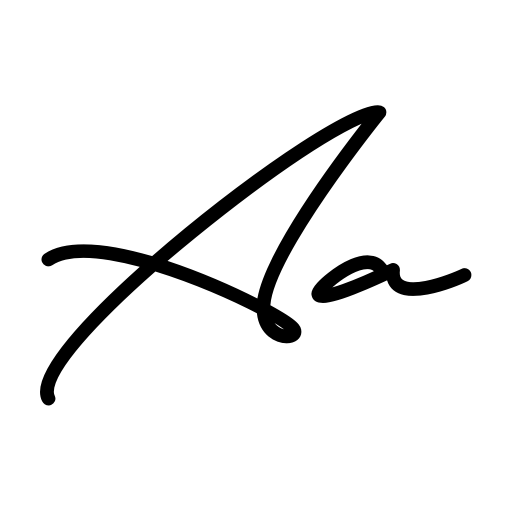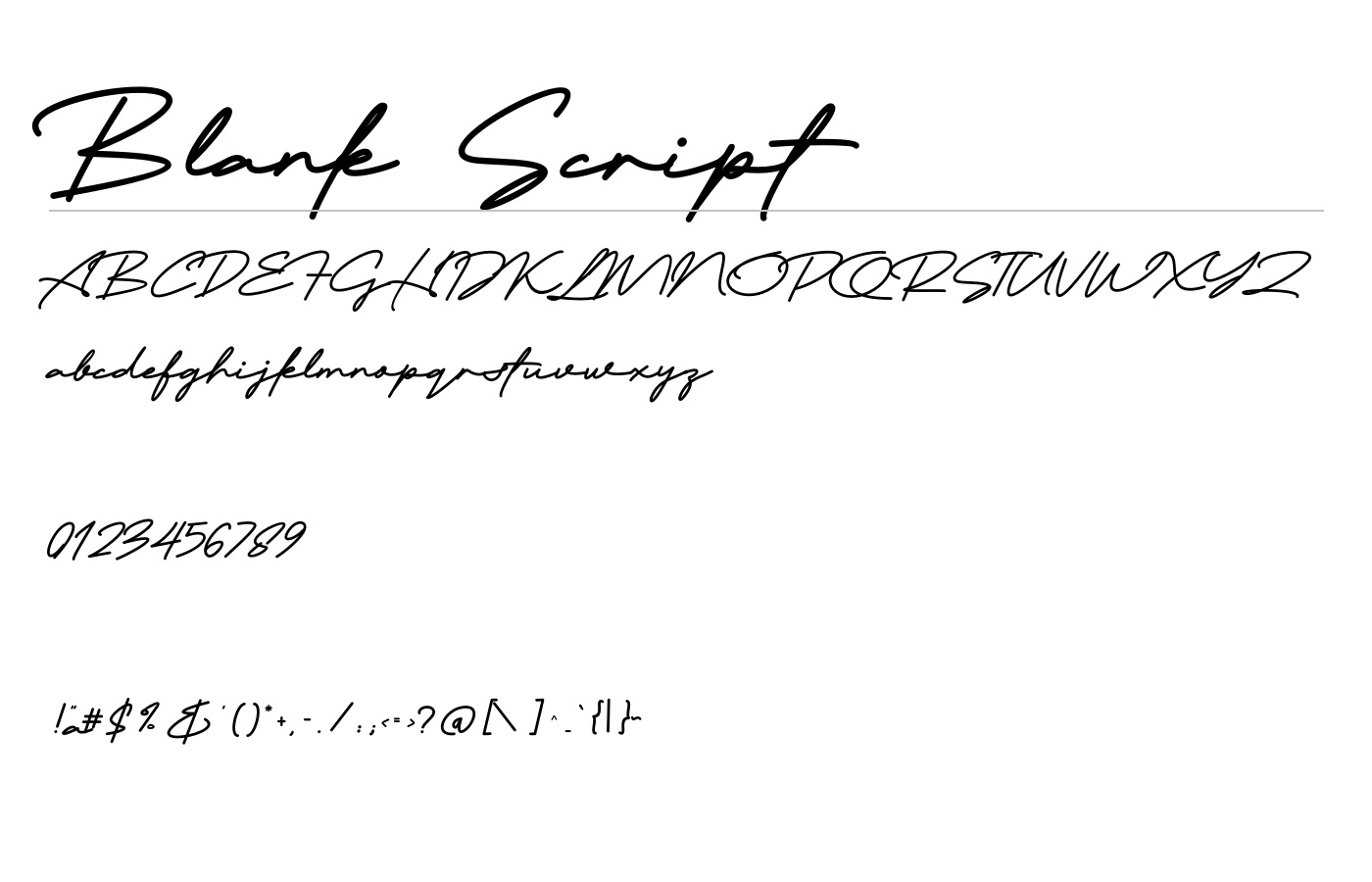
Blank Script is a stylish and elegant handwritten script font characterized by its fluid, natural strokes and a lightweight, casual feel. Its delicate, connected letterforms offer a refined yet approachable personality, making it perfect for creative branding, invitations, and sophisticated editorial designs that seek a personal touch. This font shines in contexts where a graceful, modern script is desired to convey warmth and charm.
Blank Script Font